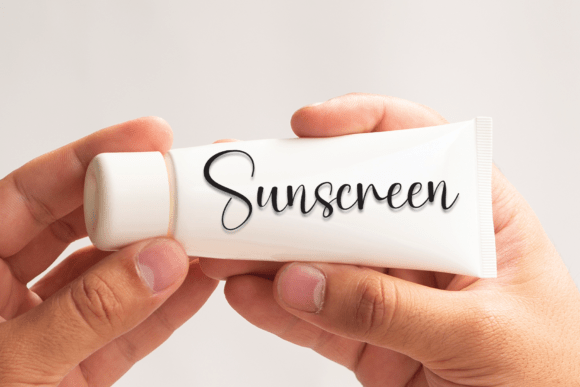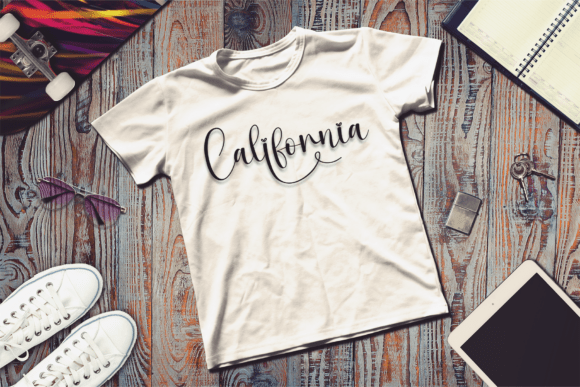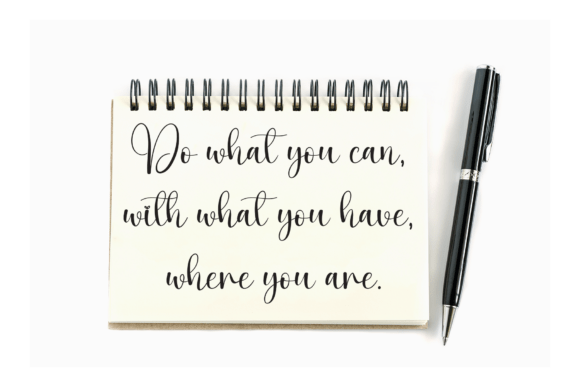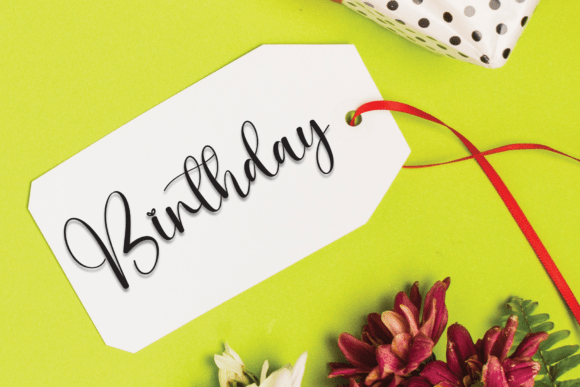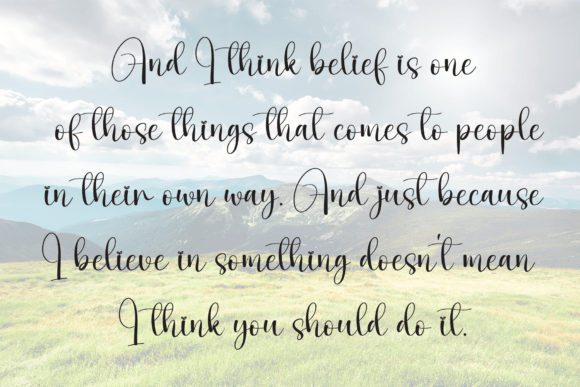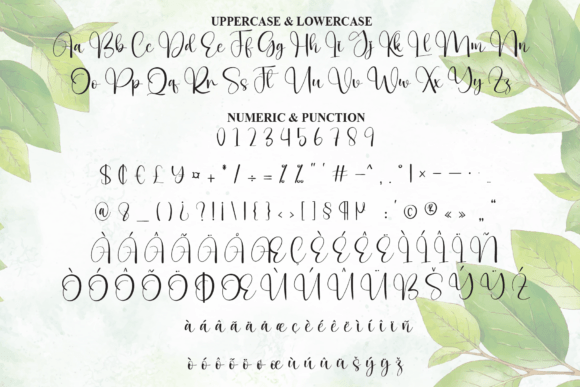
Amastry Font: Elevate Your Designs with Elegance and Fluidity
In the world of typography, few fonts manage to strike a balance between elegance, fluidity, and modernity. Amastry Font is one such exceptional typeface that embodies these qualities, making it a perfect choice for designers, crafters, and anyone looking to add a touch of sophistication to their projects. In this article, we’ll explore the features, benefits, and uses of Amastry Font, and why it’s becoming a favorite among creative professionals.
The Essence of Amastry Font
Amastry is a stylish handwritten script font that exudes elegance and fluidity. Its smooth, flowing strokes create a natural and sophisticated feel, reminiscent of traditional calligraphy. The font’s design is characterized by its graceful balance of charm and modernity, making it an excellent choice for a wide range of applications, from branding and invitations to creative projects and digital media.
Key Features of Amastry Font
- Elegant and Fluid Strokes: Amastry’s smooth, flowing strokes create a natural and sophisticated feel, perfect for designs that require a touch of elegance.
- Handwritten Script Style: The font’s handwritten script style adds a personal and artistic touch to any design, making it ideal for creative projects and custom branding.
- Balanced Charm and Modernity: Amastry strikes a perfect balance between charm and modernity, making it suitable for a wide range of applications, from traditional to digital media.
- High Versatility: The font’s versatility makes it perfect for use in various design projects, including logos, invitations, social media graphics, and more.
Benefits of Using Amastry Font
So, why choose Amastry Font for your design projects? Here are some benefits that make it an excellent choice:
- Adds a Personal Touch: Amastry’s handwritten script style adds a personal and artistic touch to any design, making it stand out from generic fonts.
- Enhances Brand Identity: The font’s elegance and sophistication make it perfect for branding, helping to create a strong and memorable brand identity.
- Easy to Read: Despite its elegant and fluid strokes, Amastry is easy to read, making it suitable for body text and headlines.
Uses of Amastry Font
Amastry Font is an incredibly versatile typeface that can be used in a wide range of design projects, including:
- Branding and Logos: Create a strong and memorable brand identity with Amastry’s elegant and sophisticated feel.
- Invitations and Stationery: Add a touch of elegance and fluidity to your invitations, cards, and stationery.
- Social Media Graphics: Use Amastry to create eye-catching social media graphics, including Facebook posts, Instagram stories, and Twitter headers.
- Digital Media: The font is perfect for e-books, blogs, and websites, adding a personal and artistic touch to your digital content.
Tips for Using Amastry Font
To get the most out of Amastry Font, here are some tips to keep in mind:
- Pair with Complementary Fonts: Pair Amastry with complementary fonts to create a harmonious and visually appealing design.
- Experiment with Colors: Experiment with different colors to find the perfect match for your design and brand identity.
- Use for Headlines and Titles: Use Amastry for headlines and titles to add a touch of elegance and sophistication.
Amastry Font is an exceptional typeface that offers a unique blend of elegance, fluidity, and modernity. Its versatility, readability, and aesthetic appeal make it an excellent choice for designers, crafters, and anyone looking to elevate their designs. Whether you’re creating a brand identity, invitation, or digital media, Amastry Font is sure to add a personal and artistic touch to your projects.